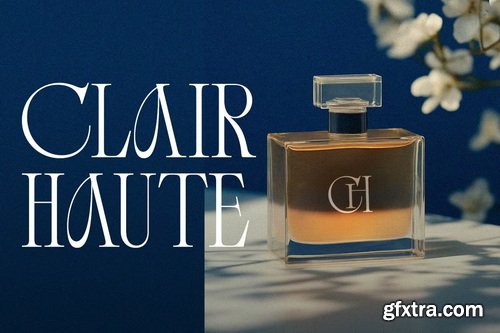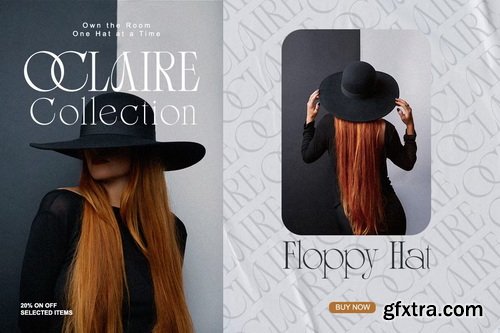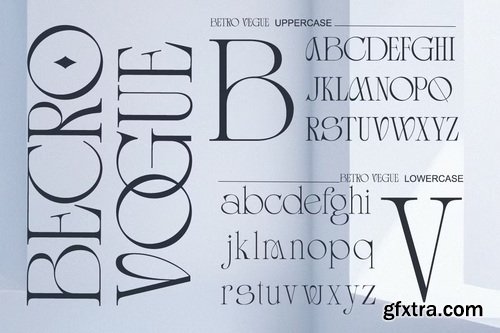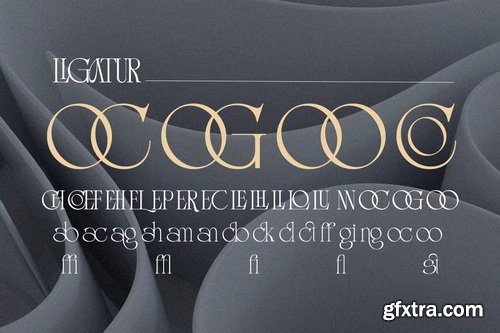
Where Modern Elegance Meets Timeless Sophistication With its razor-sharp serifs and graceful italic variant, Betro Vogue delivers unparalleled versatility for luxury brands. The meticulously designed alternates and ligatures enable flawless typographic compositions that exude exclusivity and refinement. Premium Features Include Elevate Your Brand with Betro Vogue's Signature Elegance Ideal for